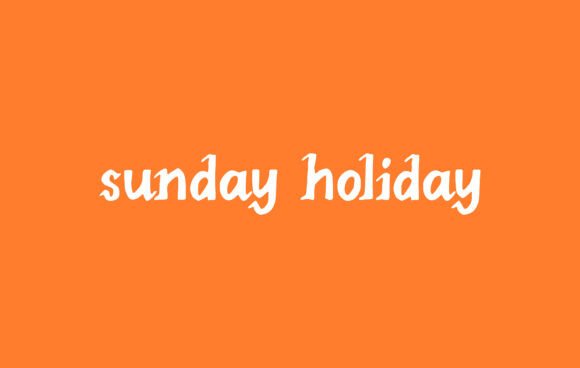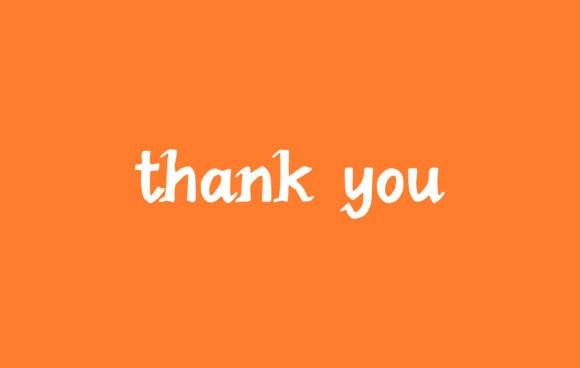
Discover the Charm of Fredoka One Font: Elevate Your Designs with a Romantic Touch
In the world of typography, few fonts manage to capture the essence of elegance and romance as effectively as the Fredoka One font. This authentic handwritten font is a masterpiece of design, boasting a unique blend of sophistication and playfulness that makes it an ideal choice for a wide range of creative projects. Whether you’re a seasoned designer or a crafting enthusiast, Fredoka One is sure to become your go-to font for adding a touch of class and whimsy to your work.
The Characteristics of Fredoka One Font
So, what sets Fredoka One apart from other fonts? For starters, its handwritten nature gives it a distinctly personal and intimate feel, perfect for designs that require a touch of warmth and personality. The font’s romantic touch is evident in its flowing lines and delicate curves, which lend a sense of elegance and refinement to any text.
But Fredoka One is more than just a pretty face. It’s also incredibly versatile, with a high level of legibility that makes it suitable for use as both title and body text. This means you can use it to create stunning headlines, or to add a touch of sophistication to longer blocks of text.
Uses for Fredoka One Font
The possibilities for using Fredoka One are endless, but here are a few ideas to get you started:
- Magazine Headlines: Add a touch of glamour to your magazine or newspaper headlines with Fredoka One’s elegant and eye-catching lettering.
- Social Media: Stand out on social media with eye-catching graphics and posts that showcase your brand’s personality.
- Branding: Use Fredoka One to create a cohesive brand identity that exudes sophistication and style.
- Wedding Invitations: Add a touch of romance to your wedding invitations, save-the-dates, and other stationery with this beautiful font.
- Cards and Stationery: Create stunning greeting cards, thank-you notes, and other paper crafts with Fredoka One’s charming lettering.
Why Designers and Crafters Love Fredoka One
So, why have designers and crafters fallen in love with Fredoka One? Here are just a few reasons:
- Unique and Authentic: Fredoka One’s handwritten nature gives it a unique and authentic feel that sets it apart from more generic fonts.
- Elegant and Refined: The font’s romantic touch and elegant lines make it perfect for designs that require a touch of sophistication.
- Versatile: With its high level of legibility and versatility, Fredoka One can be used for a wide range of projects, from titles and headlines to body text and more.
- Easy to Use: Whether you’re a seasoned designer or a crafting newbie, Fredoka One is easy to use and integrate into your projects.
In conclusion, Fredoka One font is a true gem in the world of typography. With its authentic handwritten nature, romantic touch, and versatility, it’s the perfect choice for designers and crafters looking to elevate their creative projects to the next level. Whether you’re working on a magazine headline, social media graphic, or wedding invitation, Fredoka One is sure to impress. So why wait? Discover the charm of Fredoka One for yourself, and get ready to take your designs to new heights!